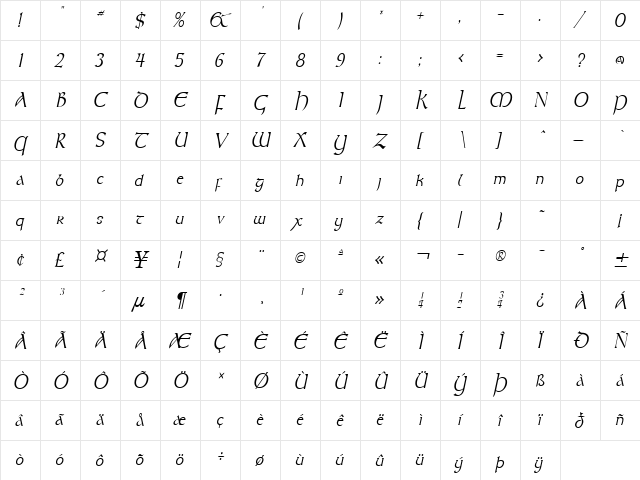
Kelt Condensed Italic Font Preview
Design Context for Kelt Condensed Typeface
Kelt Condensed takes a measured approach to typography — its balanced proportions and neutral character make it a reliable workhorse for both digital and print work. The dynamic lean of this cut emphasises speed and emphasis in any layout. The condensed width makes it efficient for tight spaces without sacrificing legibility.